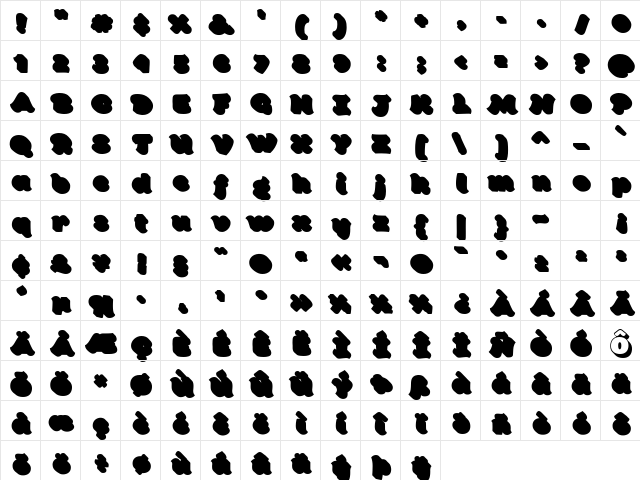
Bigfat Script Xtrude Regular
Foundry: Hendra Pratama
Designer: Hendra Pratama
Design Context for Bigfat Script Xtrude
Bigfat Script Xtrude flows with the natural rhythm of handwritten lettering, making it ideal for designs that call for warmth and personal expression.
Font Pairing: Combine Bigfat Script Xtrude with a simple geometric sans for maximum contrast - the tension between flowing curves and clean structure is a classic typographic pairing.
Pro Tip: Use Bigfat Script Xtrude for short runs of text - names, titles, or taglines. Extended body copy in script faces tires the eye quickly.